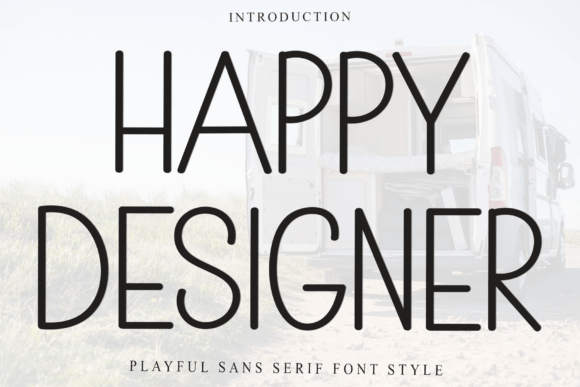
This charming font exudes a casual, creative vibe that’s perfect for personal projects, invitations, and social media graphics. With its round, playful strokes and hand-drawn aesthetic, the Happy Designer Font adds a fun and unique touch to any design. Whether you’re a seasoned pro or just starting out, this versatile font is a valuable addition to your toolkit – and with its standard PUA Encoded glyphs, it’s easy to use across a range of application engines.
Happy Designer Font Key Features
- Unique Characteristics: The Happy Designer Font features a unique, hand-drawn design with a playful and modern feel, making it perfect for creating eye-catching logos, branding, and advertising materials.
Happy Designer Font Review
Overall, I’m quite pleased with the Happy Designer Font. It has a playful, yet professional vibe that works well for a variety of projects.
- ⚠️ The font may not be the best choice for formal or professional projects, as its playful feel may not be suitable for more serious contexts.
- ⚠️ The font can be a bit too casual for larger, more prominent headings, where a bolder font may be more effective.
Overall, I think the Happy Designer Font is a solid choice for designers who need a fun, versatile font for a variety of projects. While it may not be the best fit for every situation, its customizability and playful feel make it a great addition to any designer’s toolkit.